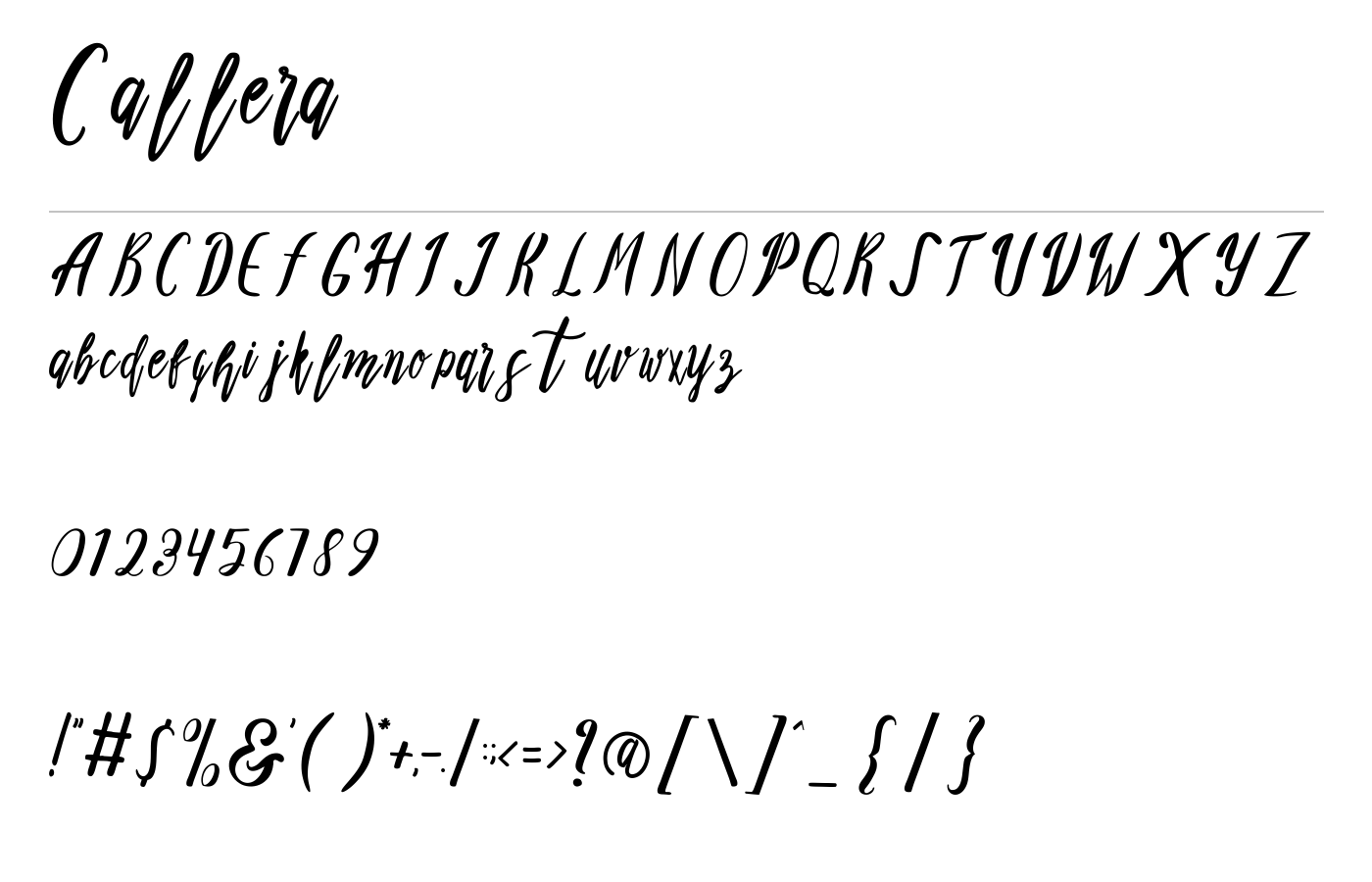
Callera is an elegant script font with a handwritten, calligraphic style featuring tall, slender letterforms and a smooth, flowing stroke. Its refined appearance brings a modern yet classic feel, making it ideal for sophisticated branding, invitations, and stylish headlines where a personal, artistic touch is desired.
Callera Font
About Callera Font
| Font family | Callera Font |
| Designer | Angga Mahardika |